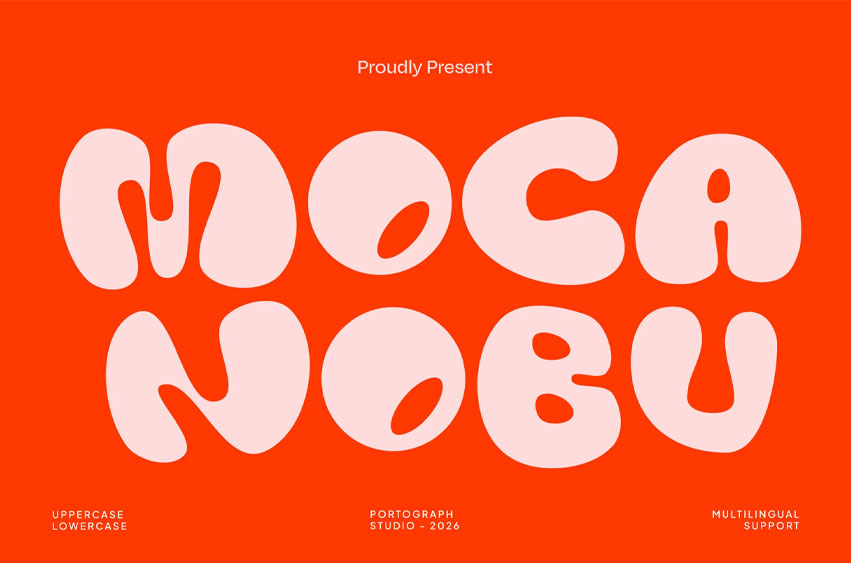
Moca Nobu Font
Moca Nobu Font is a cute and cheerful bubble display font designed to bring warmth, fun, and personality into your creative projects.
Featuring soft rounded shapes, playful curves, and a friendly handcrafted feel, this typeface is perfect for creating eye catching designs that feel approachable and memorable.
• Coffee Branding
• Café Logo
• Food Packaging
• Restaurant Menu
• Coffee Shop Posters
• Beverage Labels
• Social Media Quotes
• Handcrafted Branding
• Creative Headlines
• Editorial Design
• Sticker Design